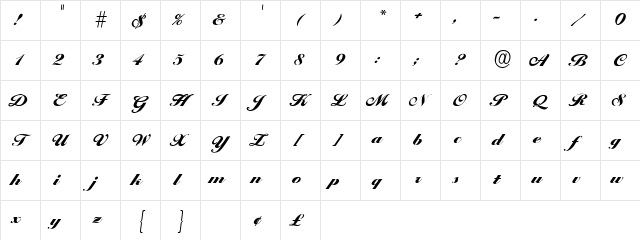
Premi Script SSi Regular
Design Context for Premi Script SSi
Premi Script SSi flows with the natural rhythm of handwritten lettering, making it ideal for designs that call for warmth and personal expression.
Font Pairing: Combine Premi Script SSi with a simple geometric sans for maximum contrast - the tension between flowing curves and clean structure is a classic typographic pairing.
Pro Tip: Use Premi Script SSi for short runs of text - names, titles, or taglines. Extended body copy in script faces tires the eye quickly.